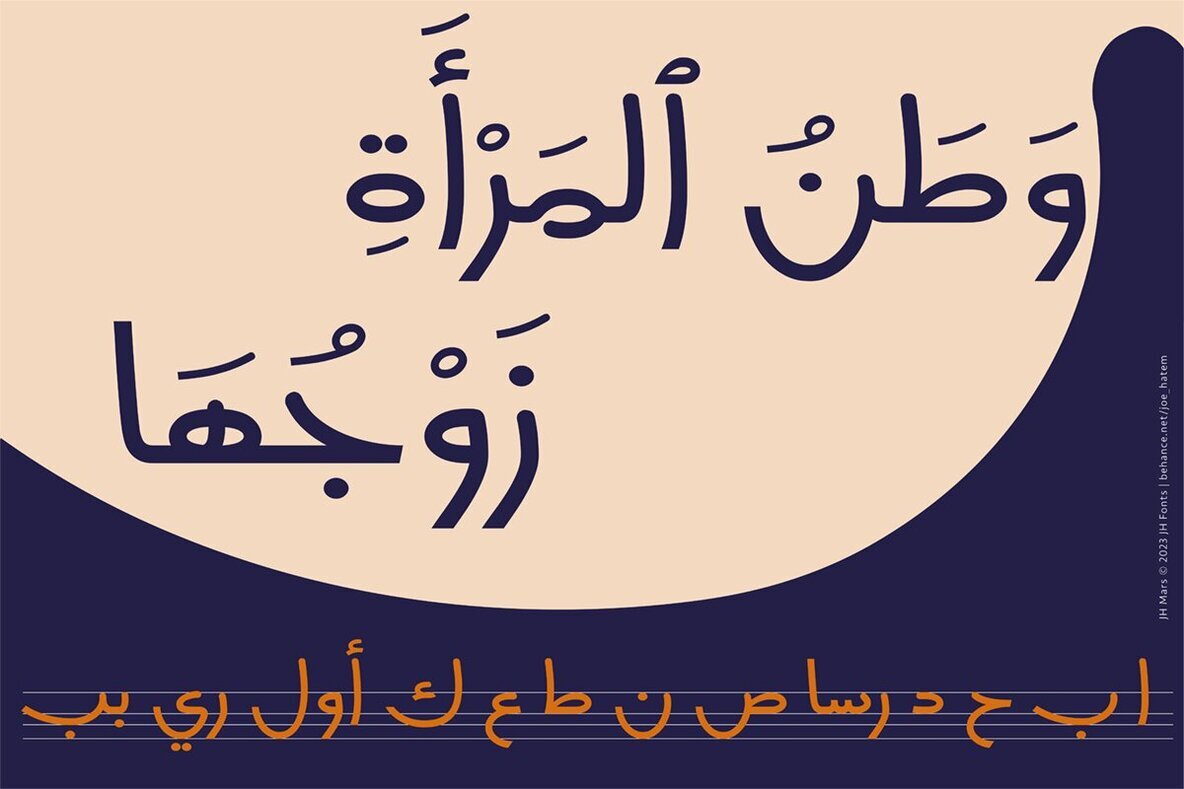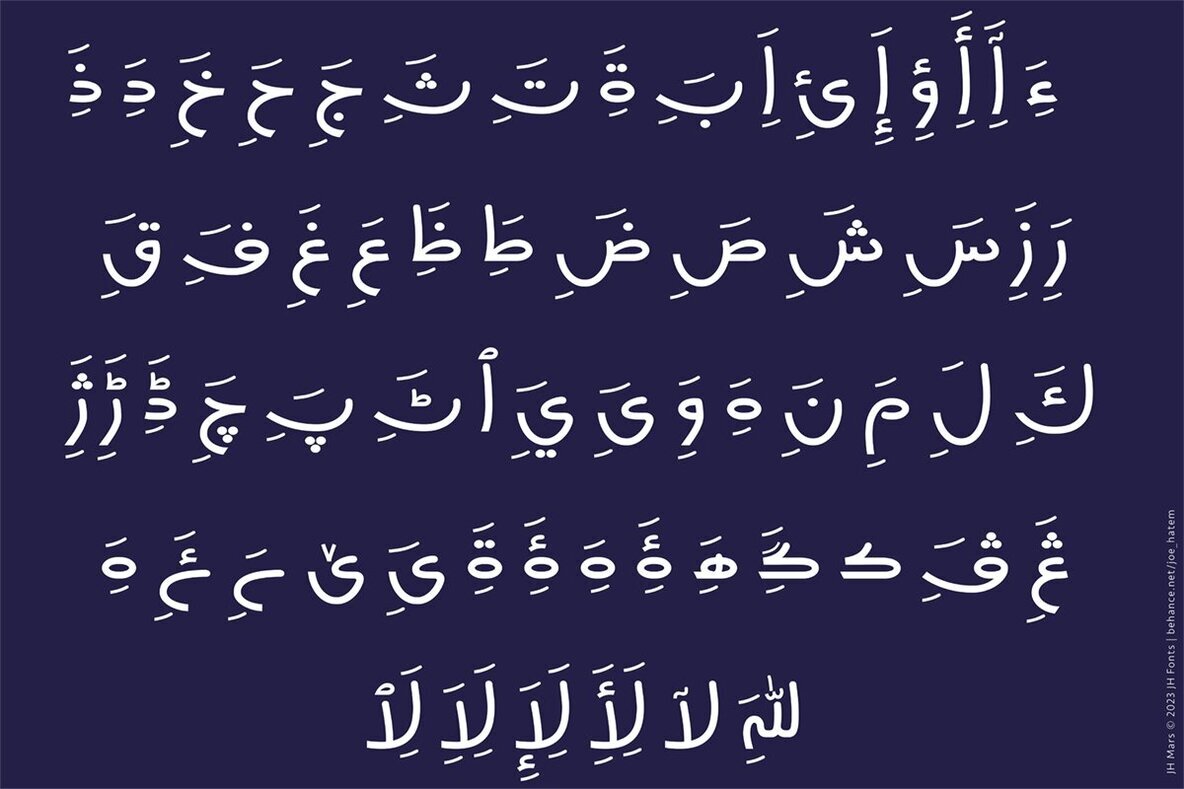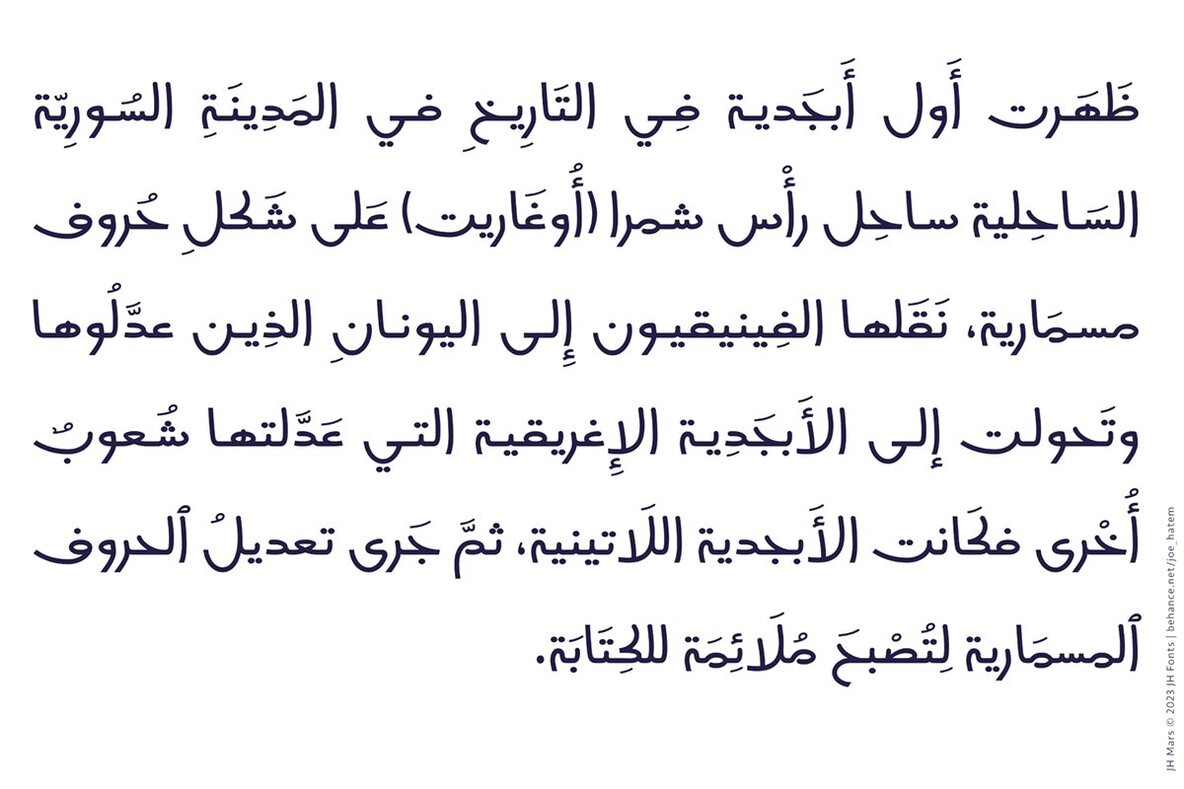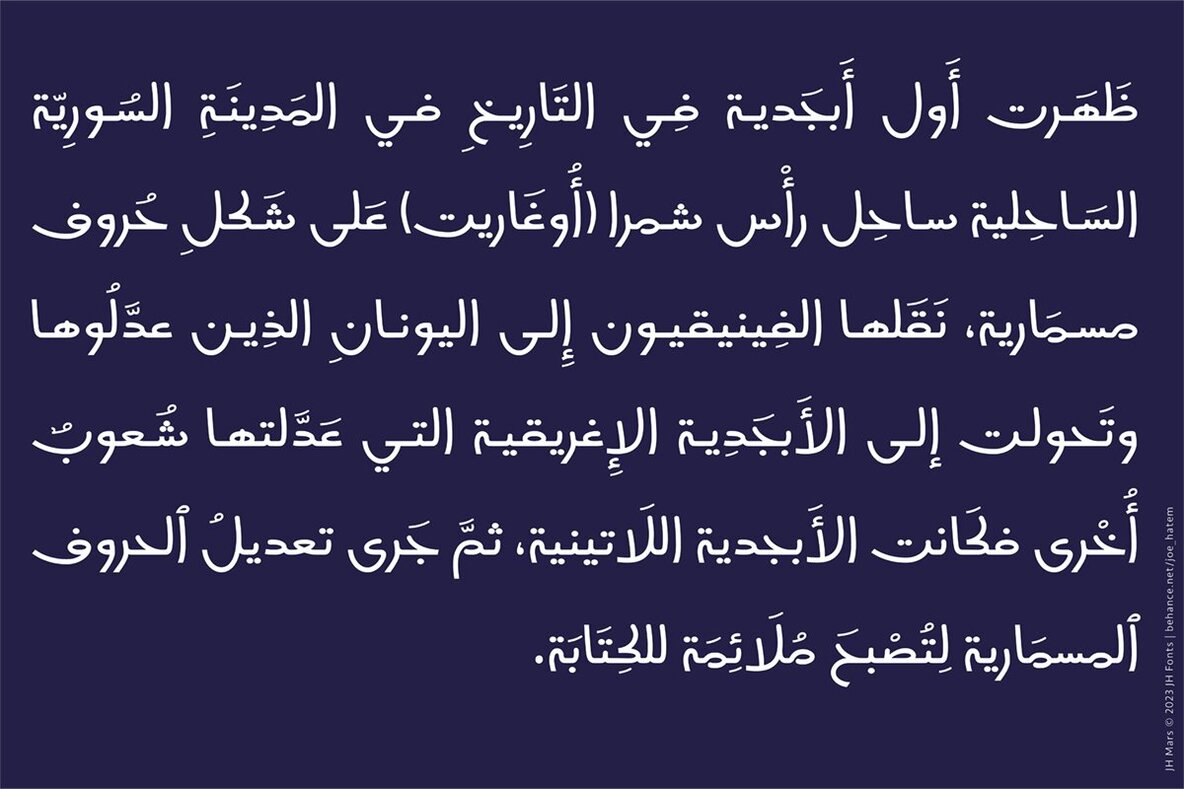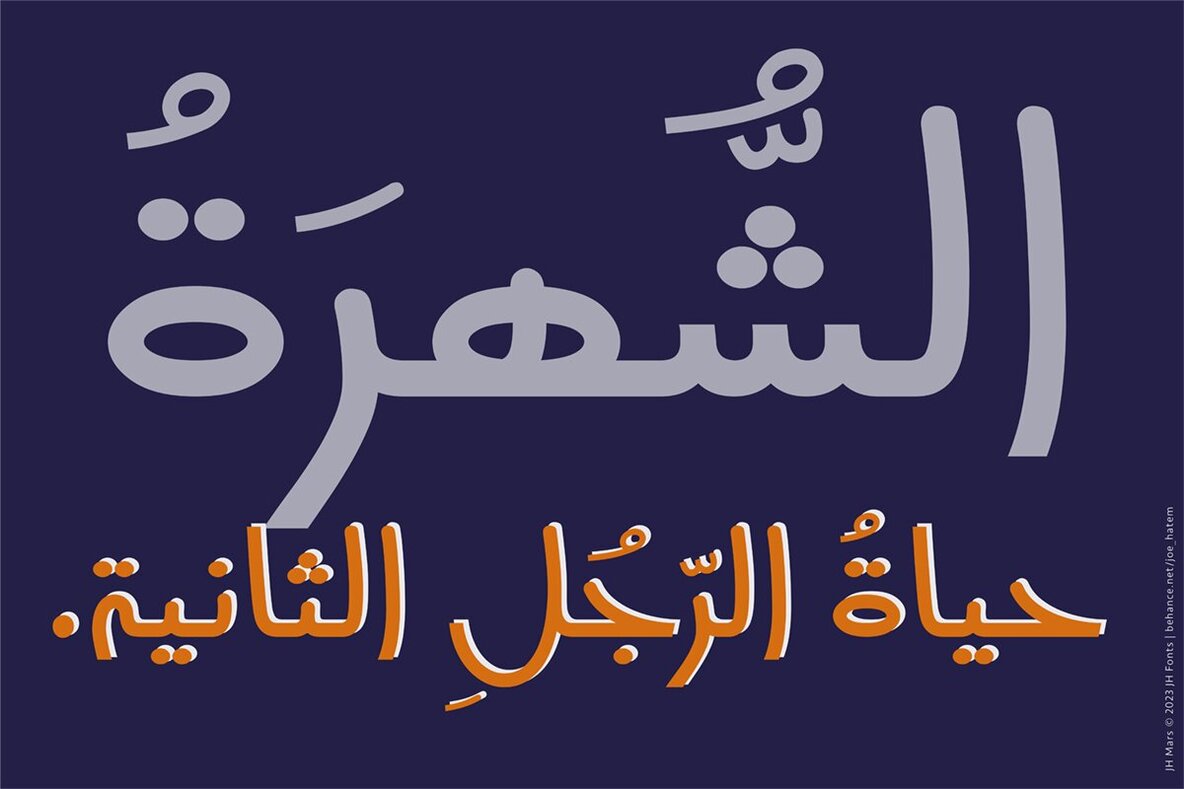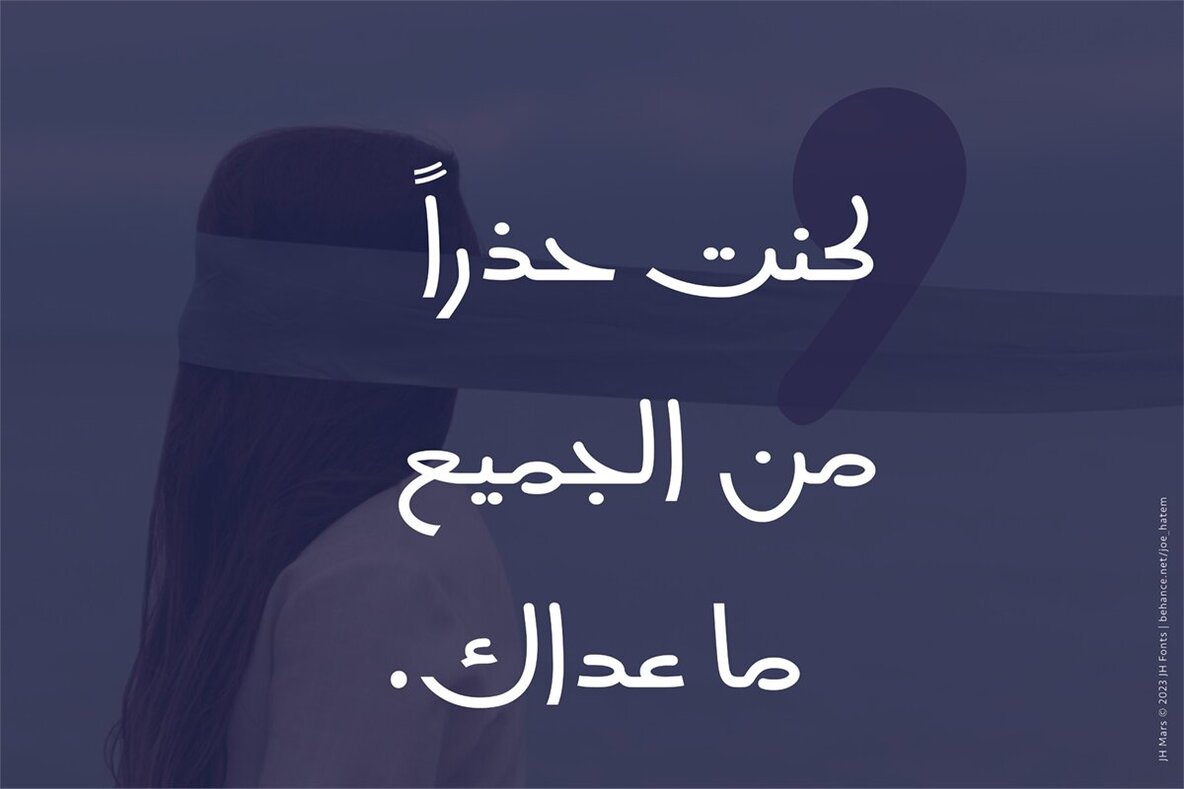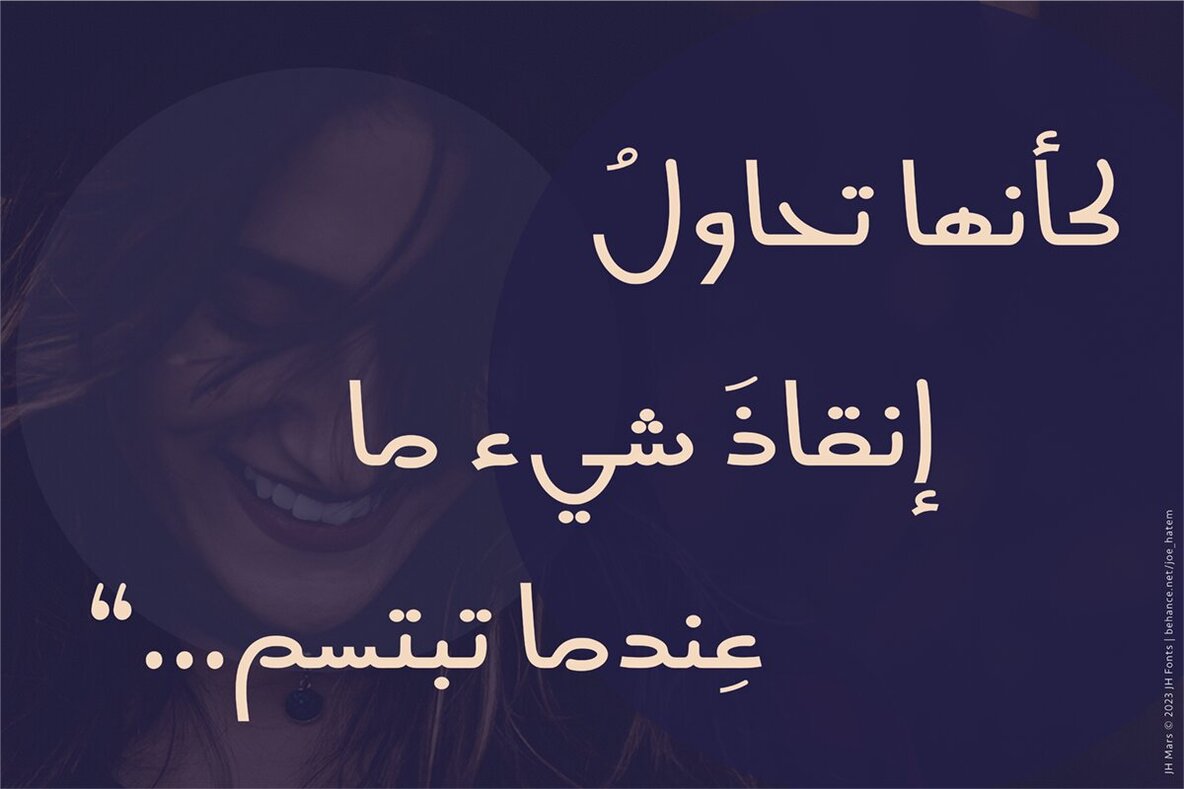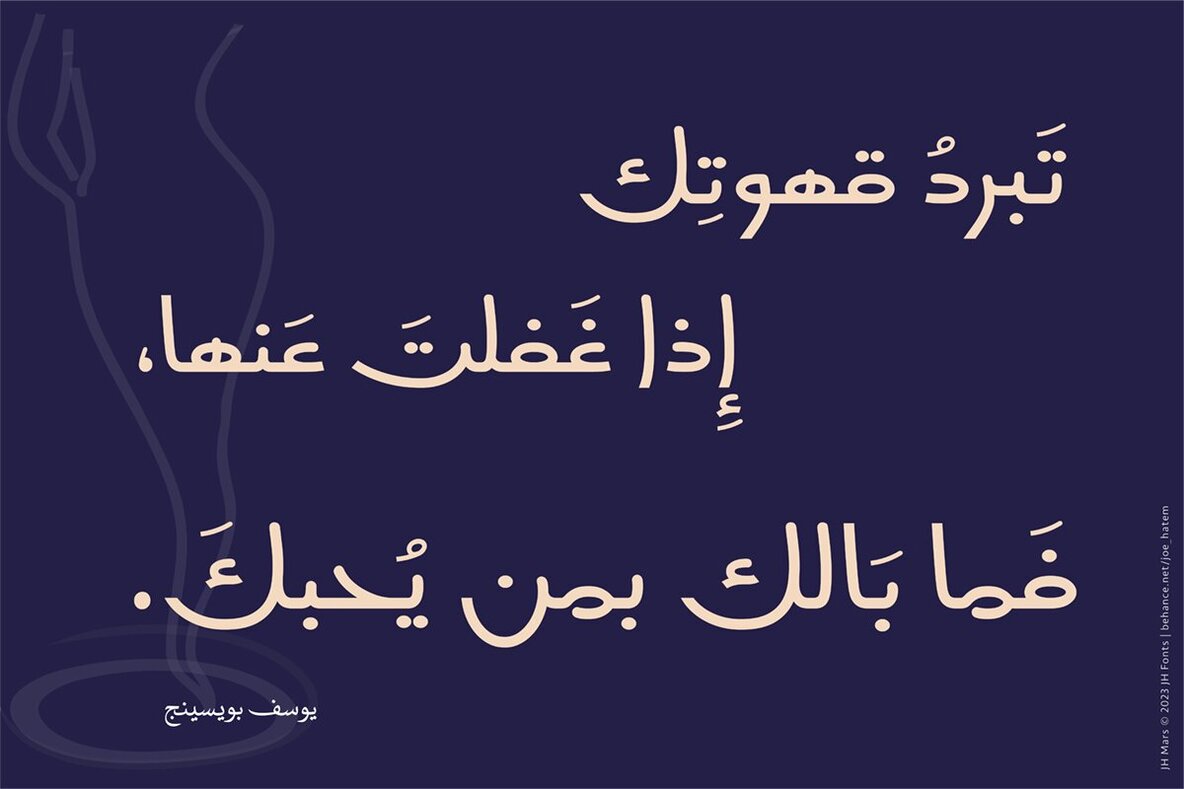
JH Mars Font
JH Mars
JH Mars is a modern style typeface; it is designed based on old Koufi, Maghribi & Diwani scripts, typical for corporate identity, headlines, branding & signage.